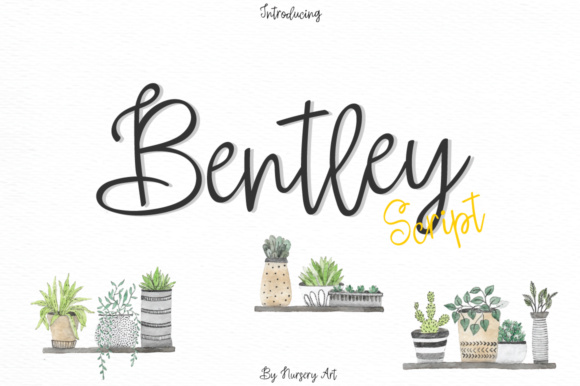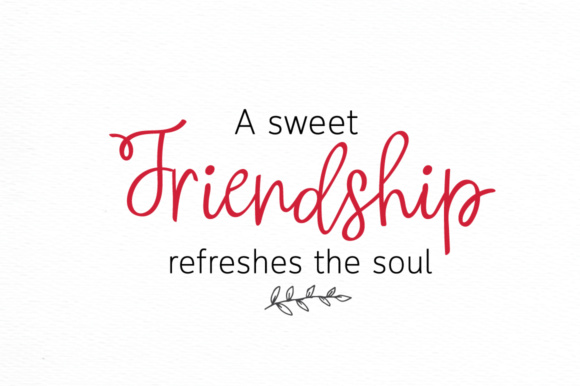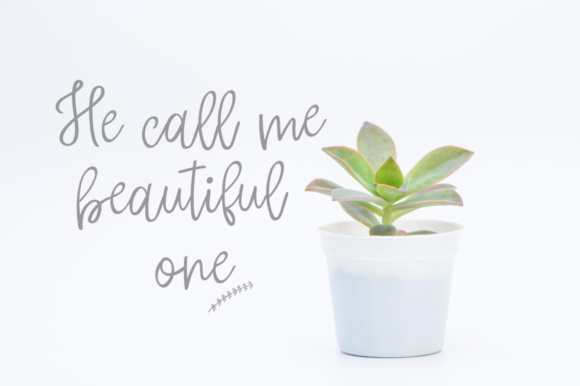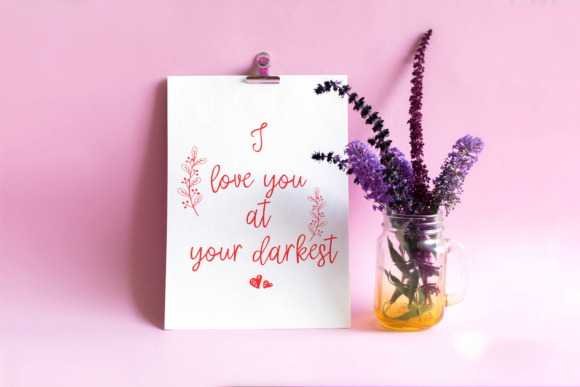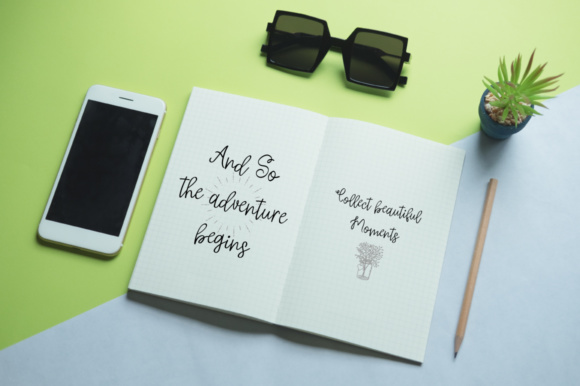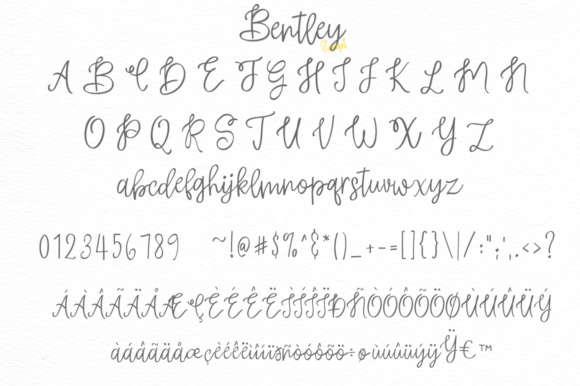
HomeScript FontsBentley Font Script Fonts Bentley Font FacebookXPinterestWhatsApp Bentley Font Poster 2 Bentley Font Poster 3 Bentley Font Poster 4 Bentley Font Poster 5 Bentley Font Poster 6 About Bentley Font The Bentley script is a lovely handwritten brush script. It’s ideal for branding and decorating your projects. DOWNLOAD NOW People also explored Cassia Font Farm Font Arkelogue Medium Font Big Koruc Farringdon Churchward Ta Tiki Font Yofanka Font Nice Broy Font Clerista Font 266 0 TagsBentley Font Previous articleRoche Script FontNext articleHello There Font LEAVE A REPLY Cancel reply Comment: Please enter your comment! Name:* Please enter your name here Email:* You have entered an incorrect email address! Please enter your email address here Website: Save my name, email, and website in this browser for the next time I comment. Personal Use Free Cinderella Personal Use Free Read more about this font Elevate Your Halloween Designs with 500 Free High-Quality PNG Clipart Files Personal Use Free Read more about this font Expaing Personal Use Free Read more about this font Mariyam Personal Use Free Read more about this font BLOG To increase your work productivity, choose the most readable fonts. In today's fast-paced work environment, where digital communication and information consumption are integral to our daily routines, the choice of fonts can significantly impact... Elegant Wedding Invitation Fonts – Handwritten & Script Fonts Top 7 Google Fonts Alternatives for Faster and Privacy-Friendly Web Design (2025) Top 10 Handwritten Fonts That Elevate Your Designs